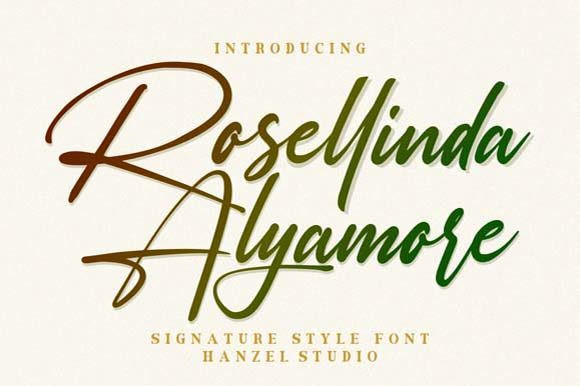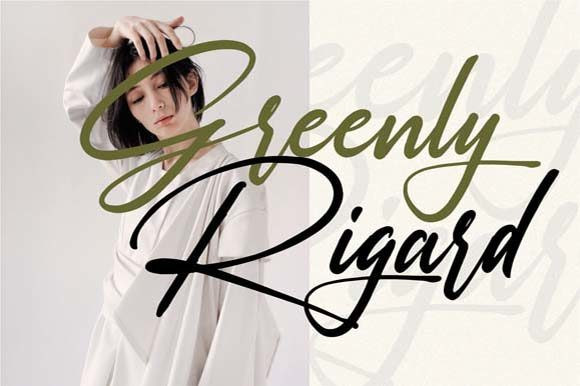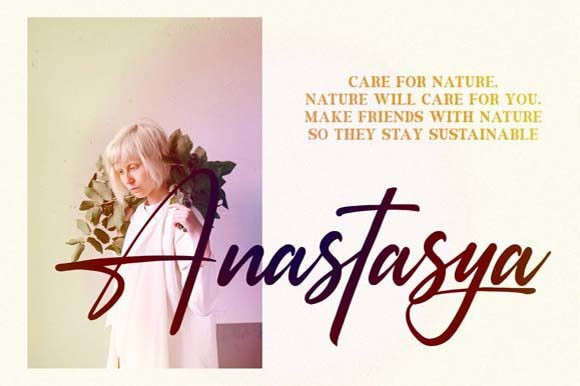
Rosellinda Alyamore Font
Rosellinda Alyamore is a beautiful flowing handwritten font with a stylish appeal. It is perfectly suited for a wide variety of projects!